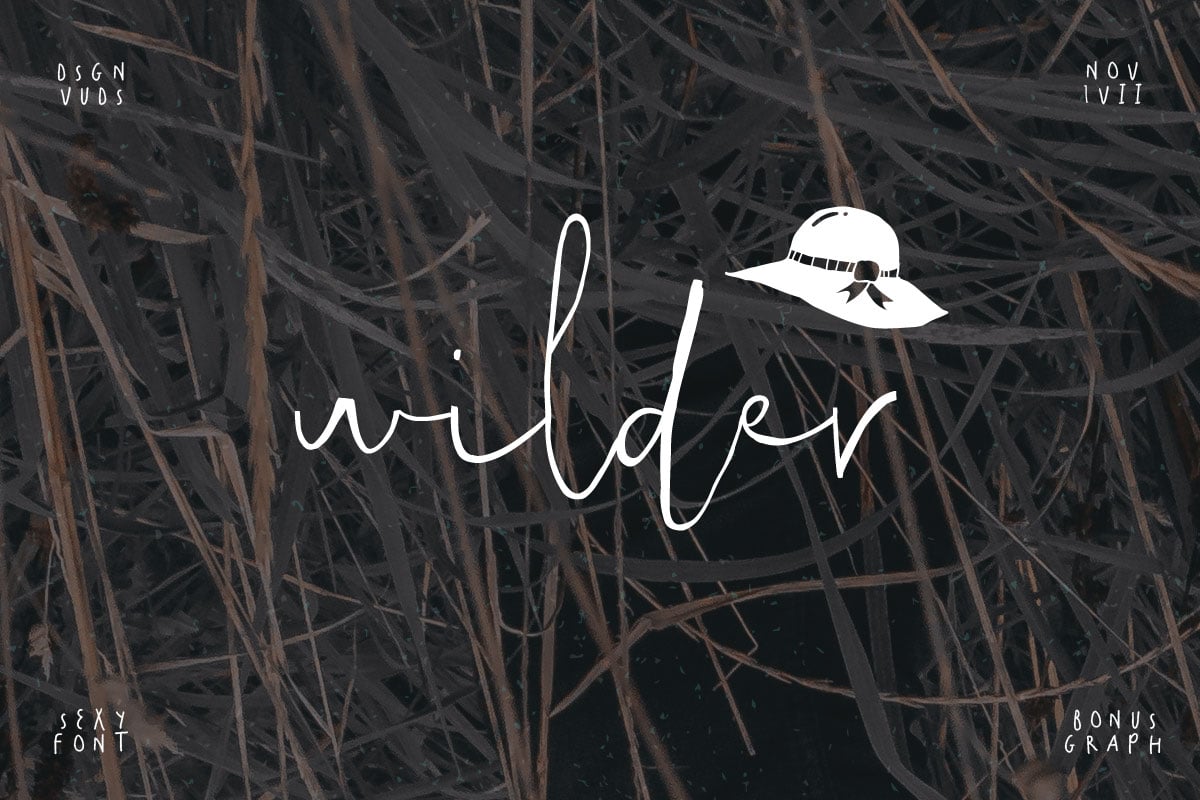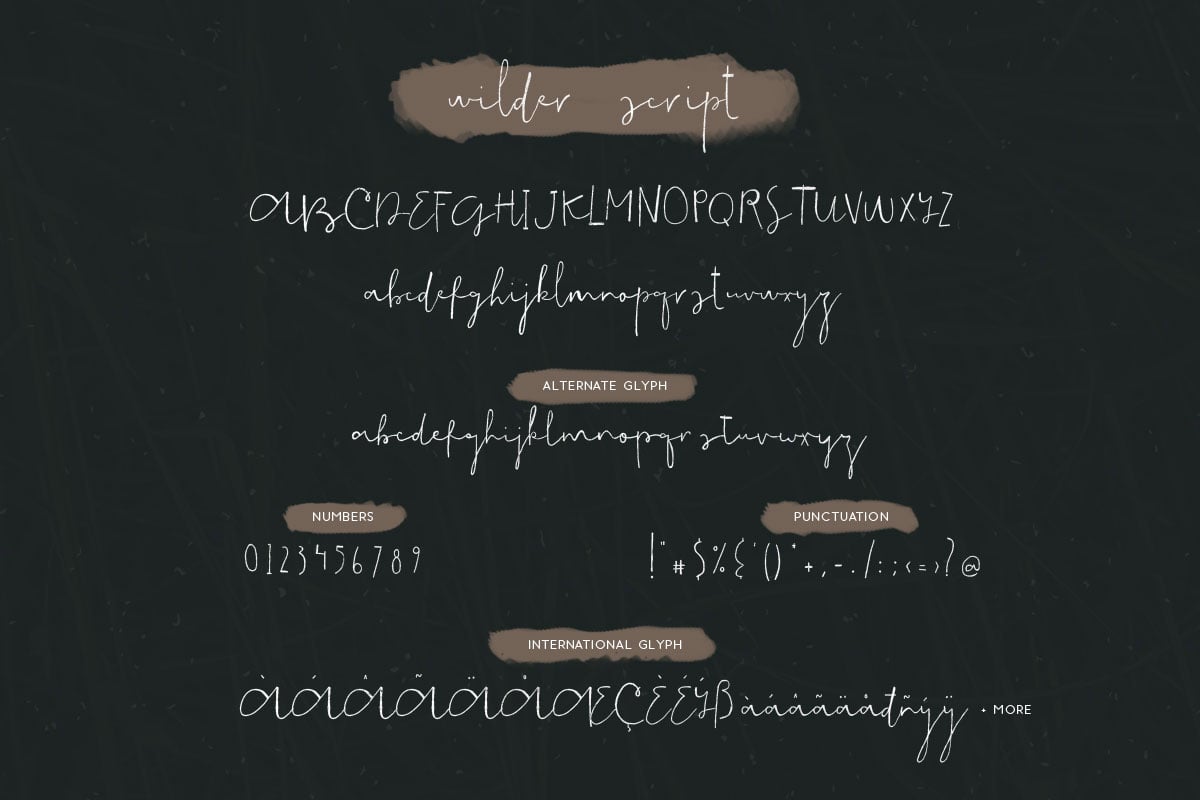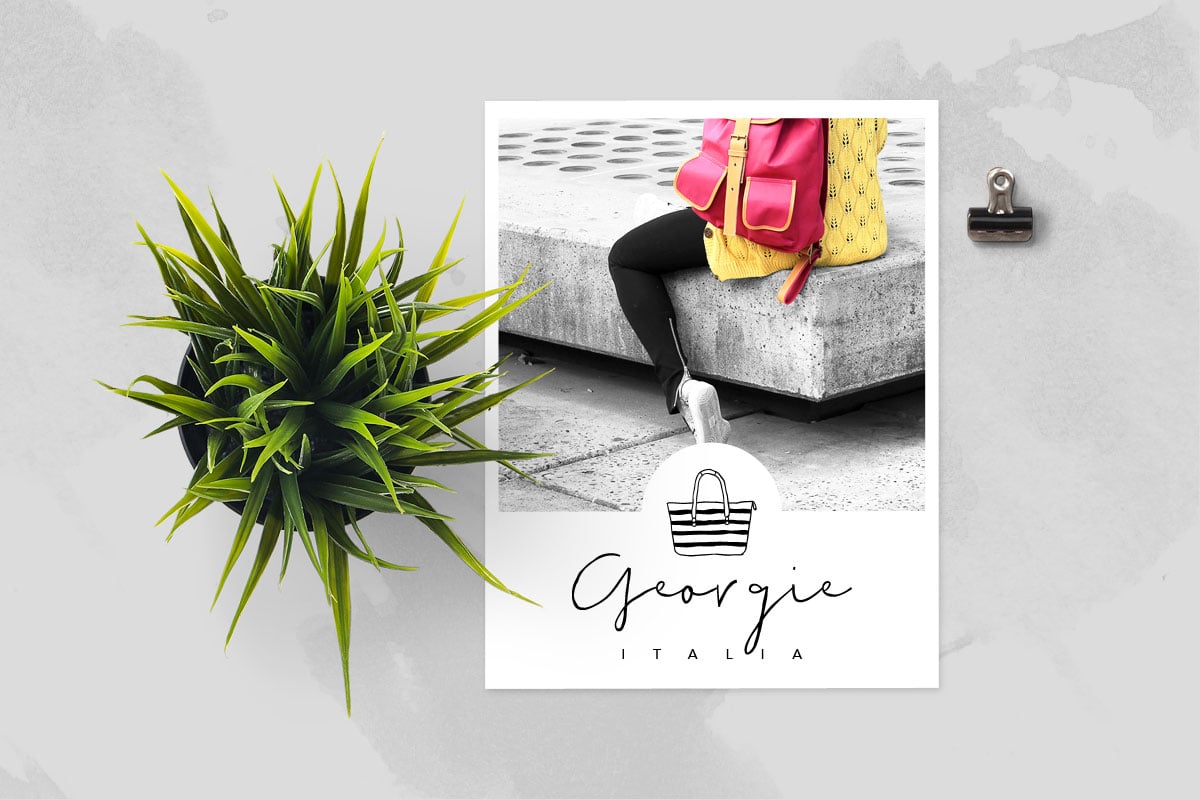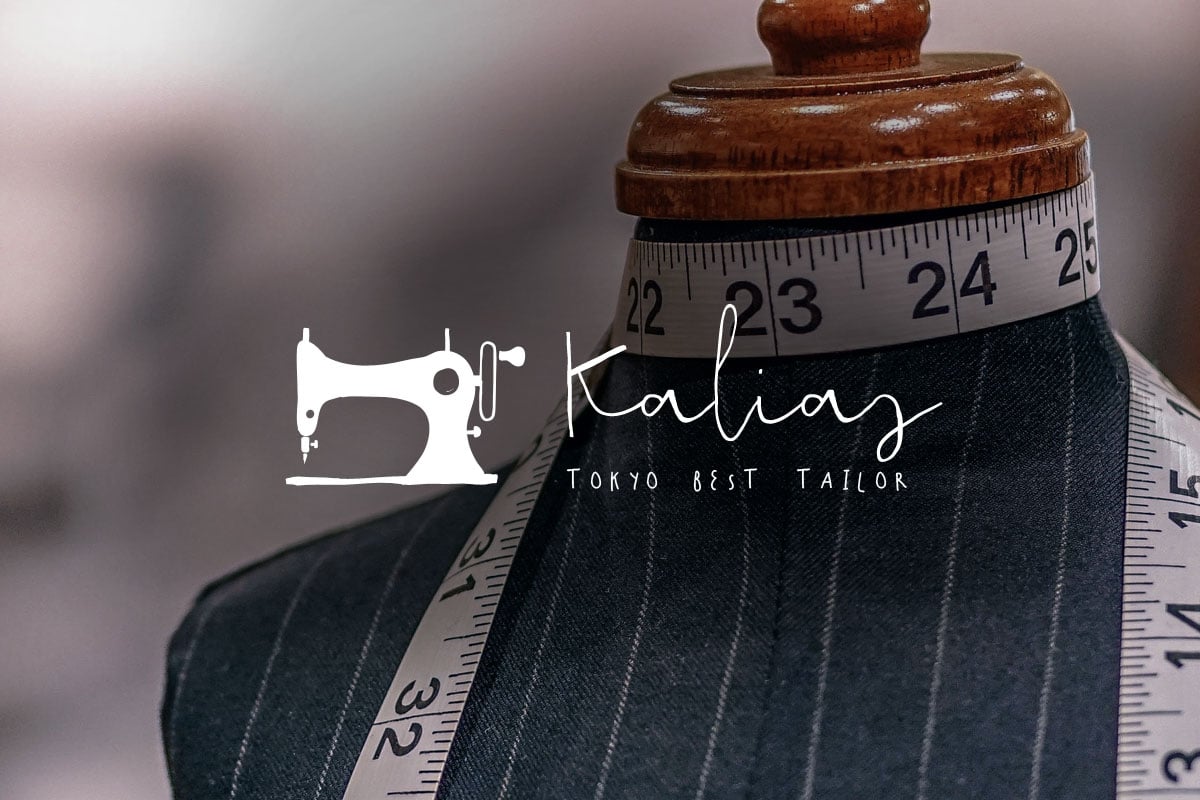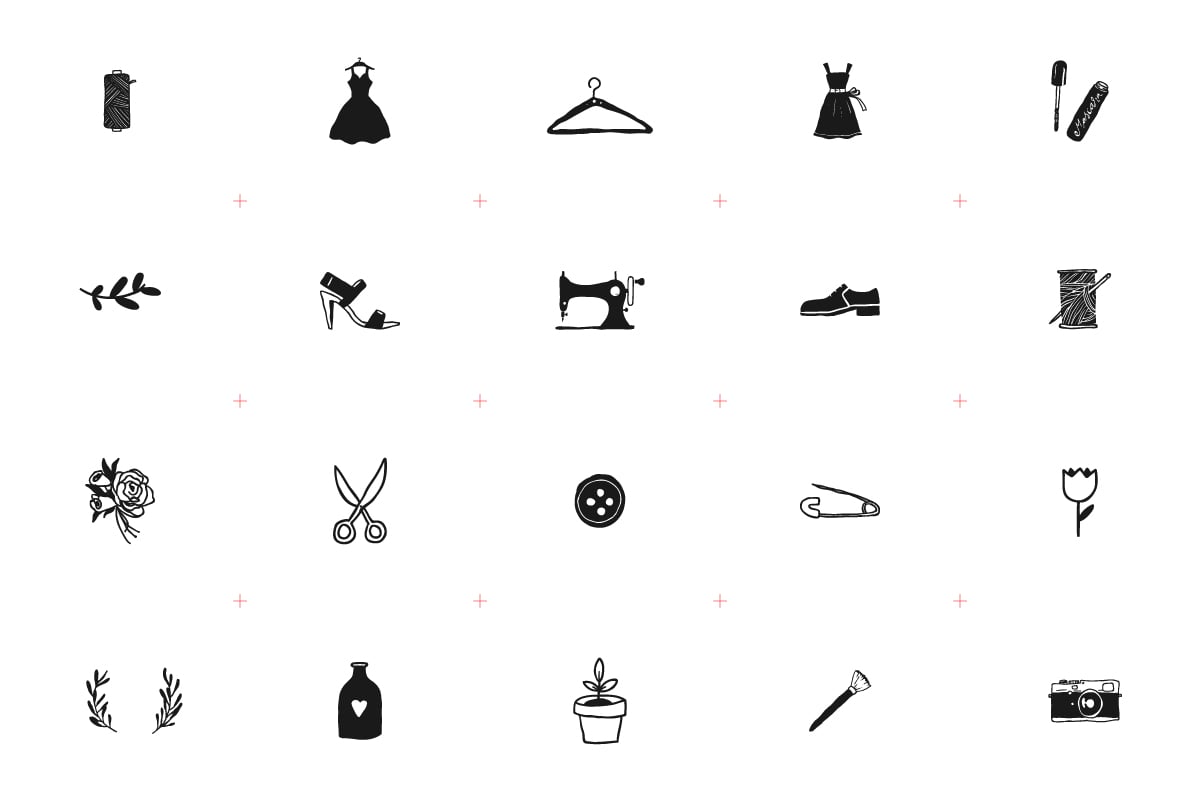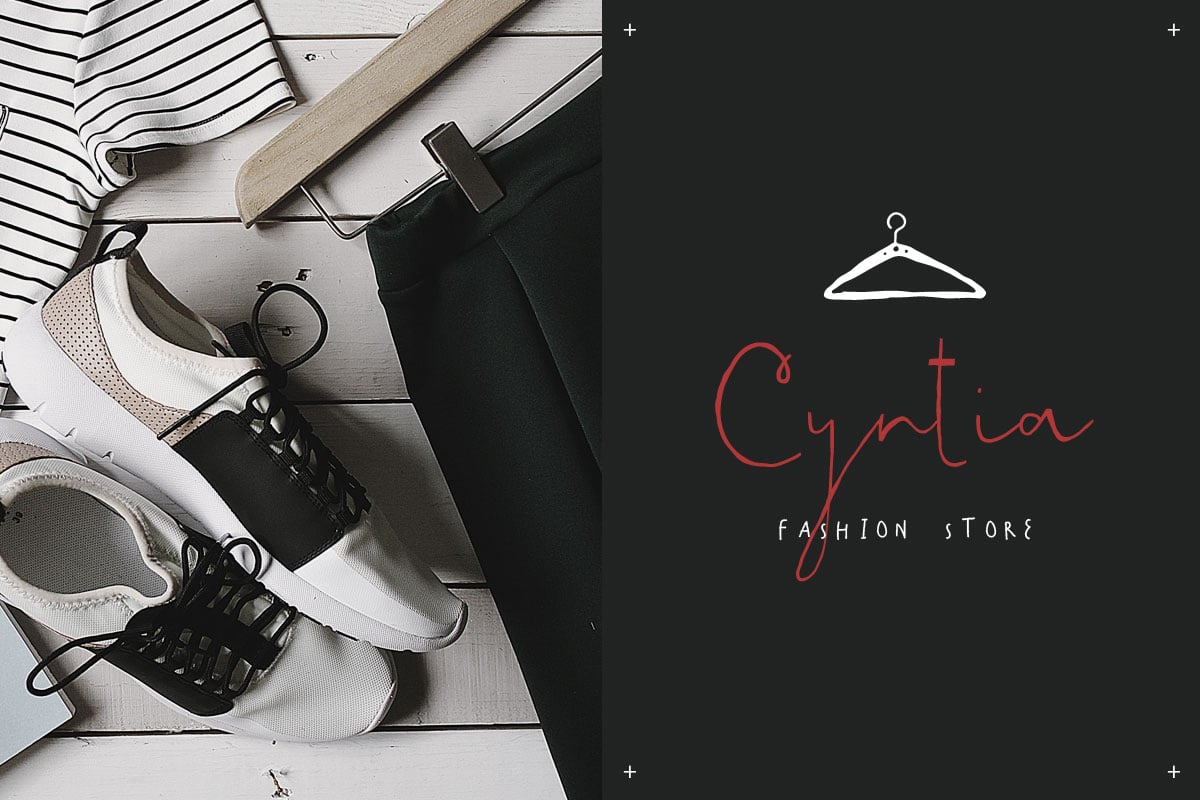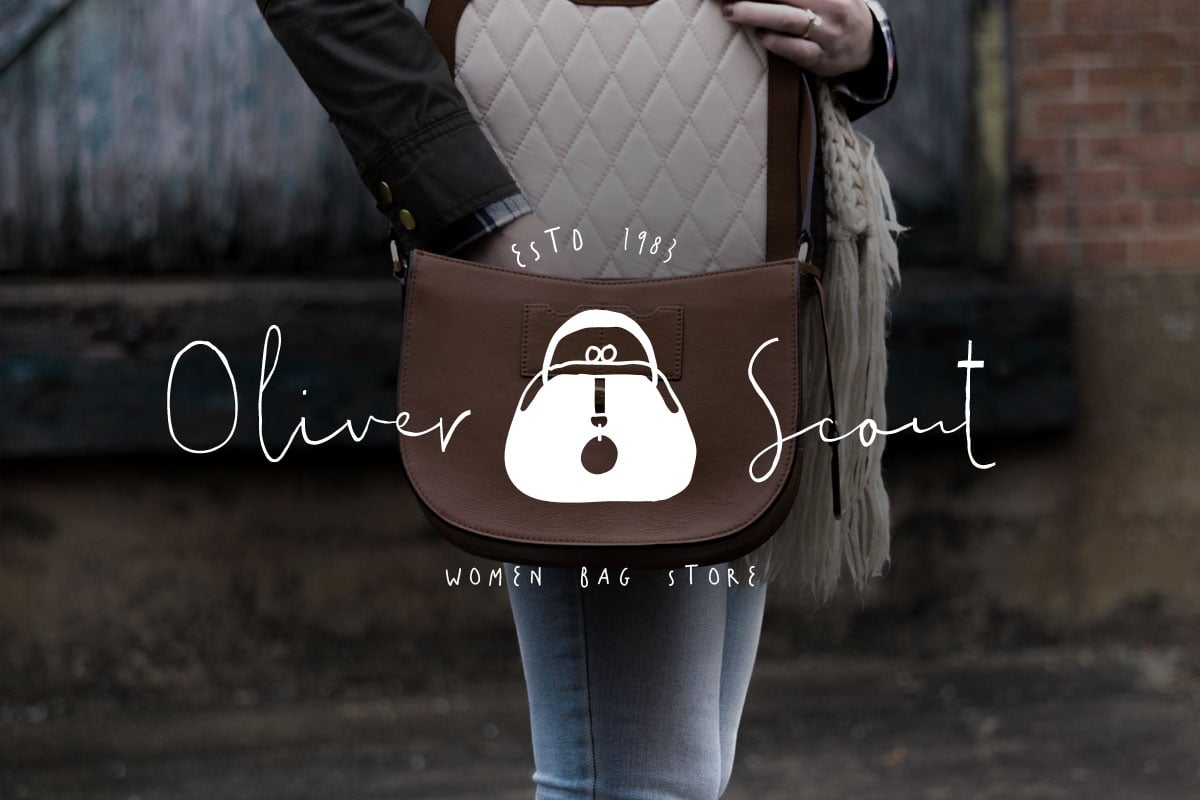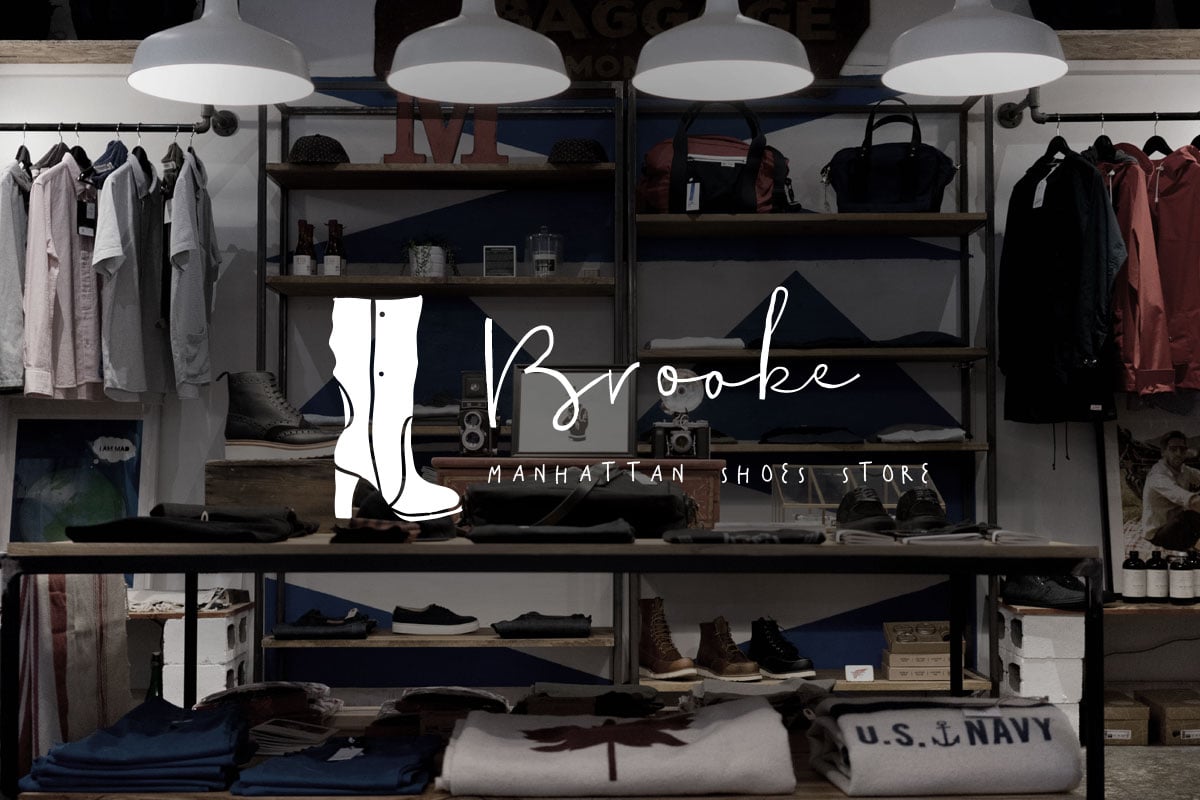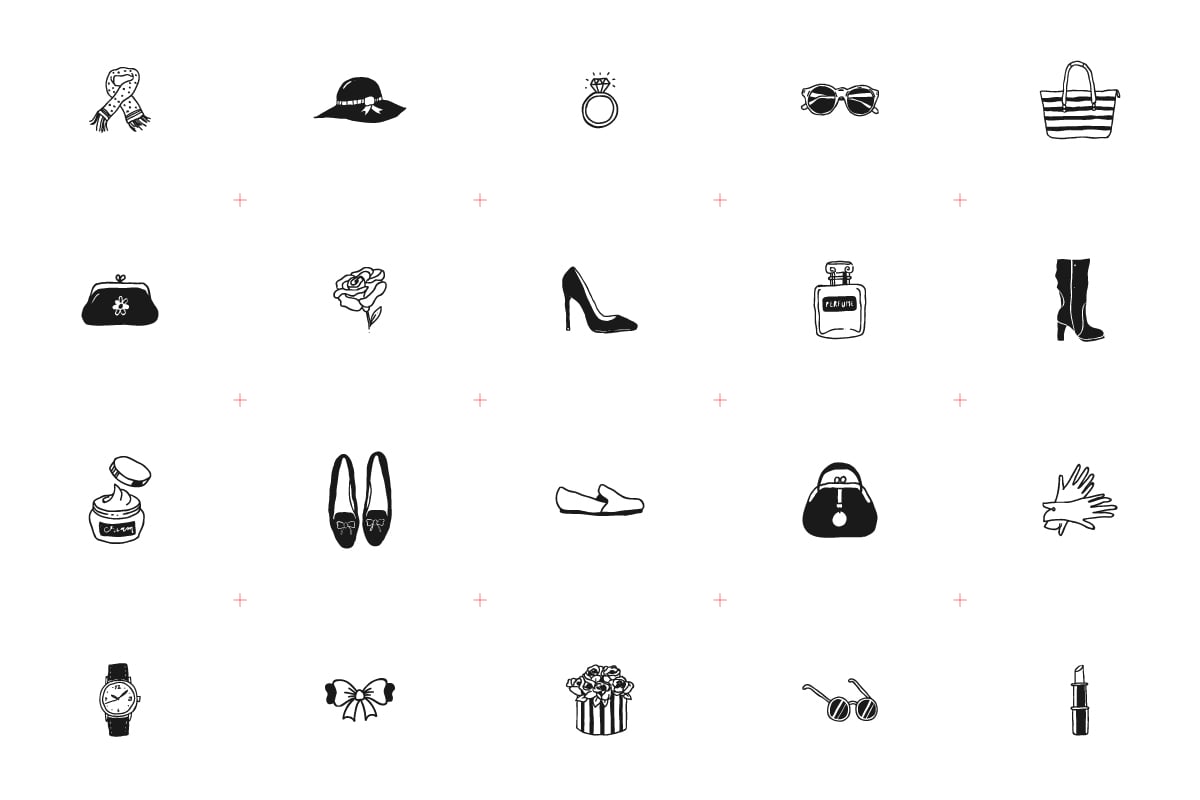
Wilder Font & Graphic
Wilder script come with modern feminine script. Every single glyph have been carefully crafted to make it perfect each other. This font will perfect for many different project ex: quotes, blog header, poster, wedding, branding, logo, fashion, apparel, letter, invitation, stationery, etc.
Also this item including 40 illustrations with AI & PSD format. This bonus can bring more fun to you when playing with the font.
Languages support: ÀÁÂÃÄÅÆÇÈÉÊËÌÍÎÏÐÑÒÓÔÕÖØÙÚÛÜÝßàáâãäåæçèéêëìíîïðñòóôõöøùúûüýÿ